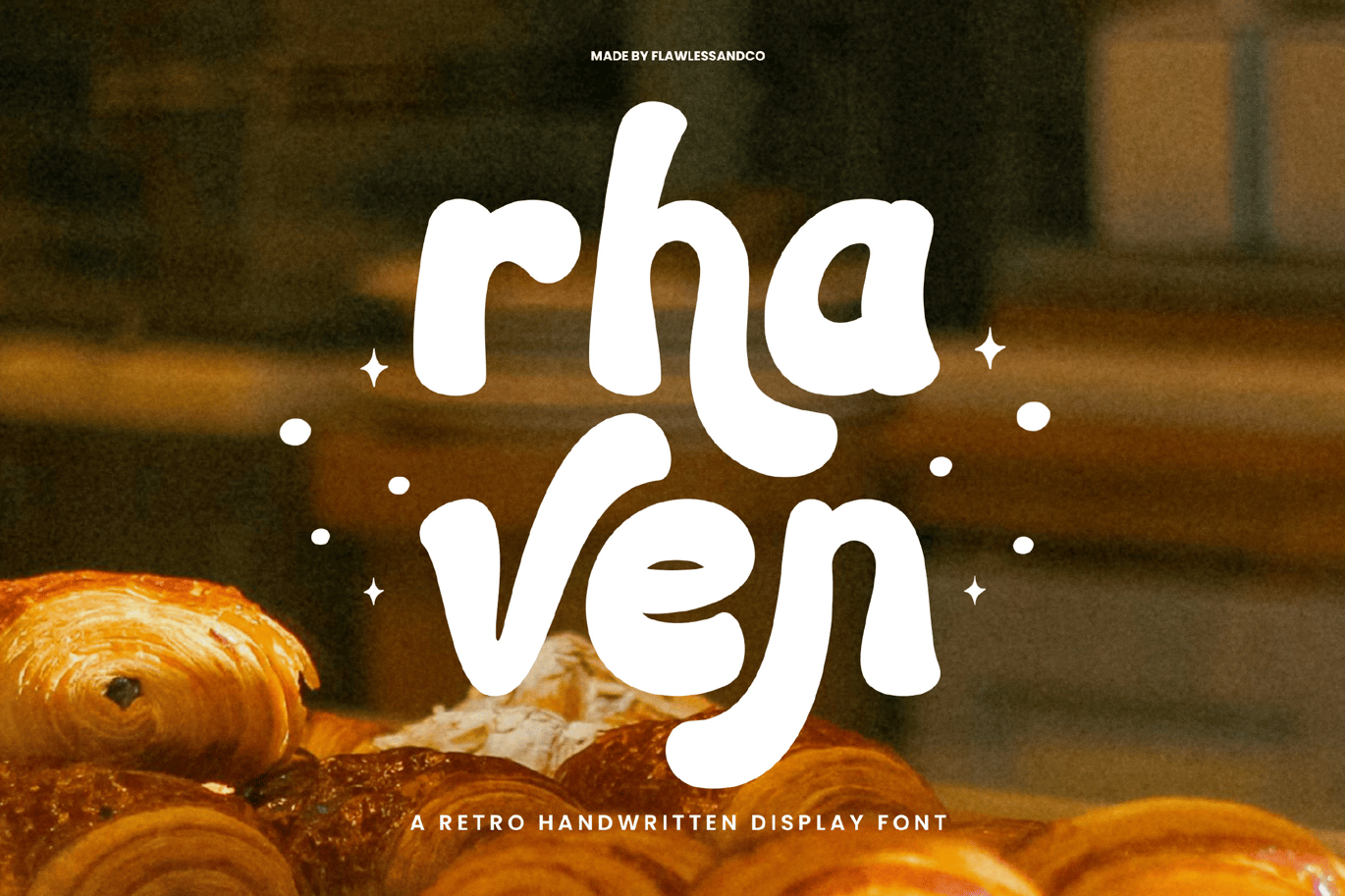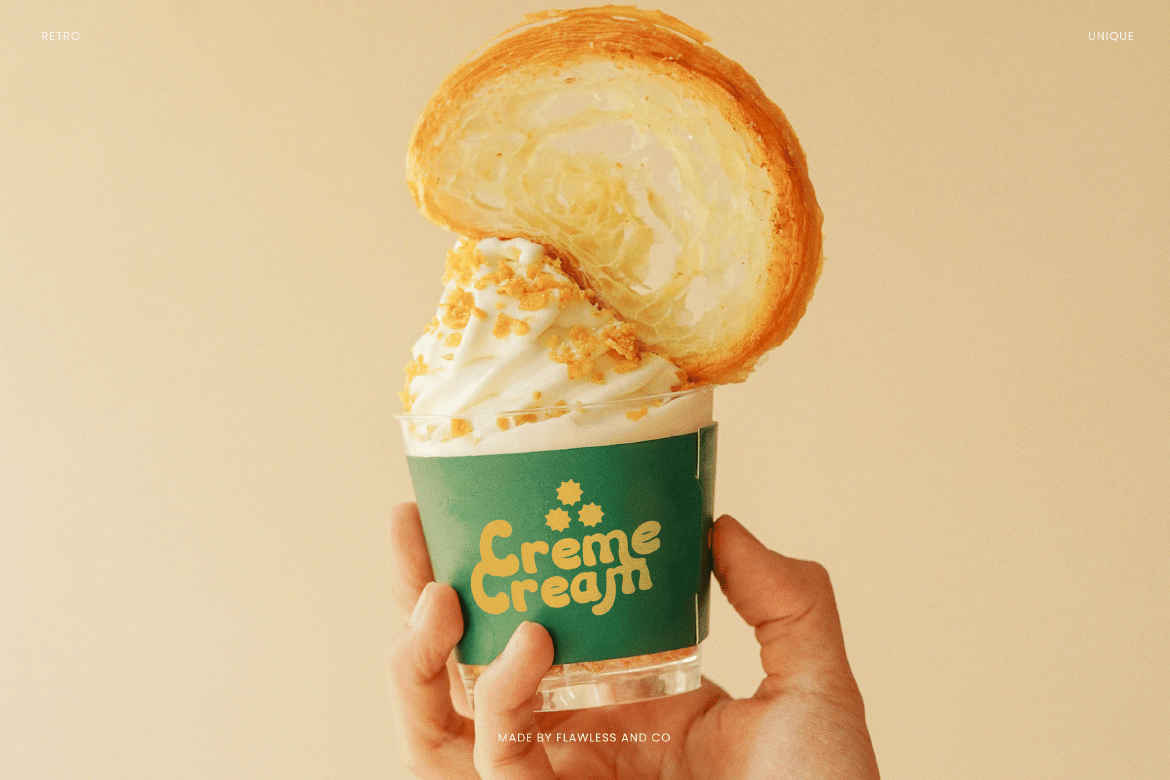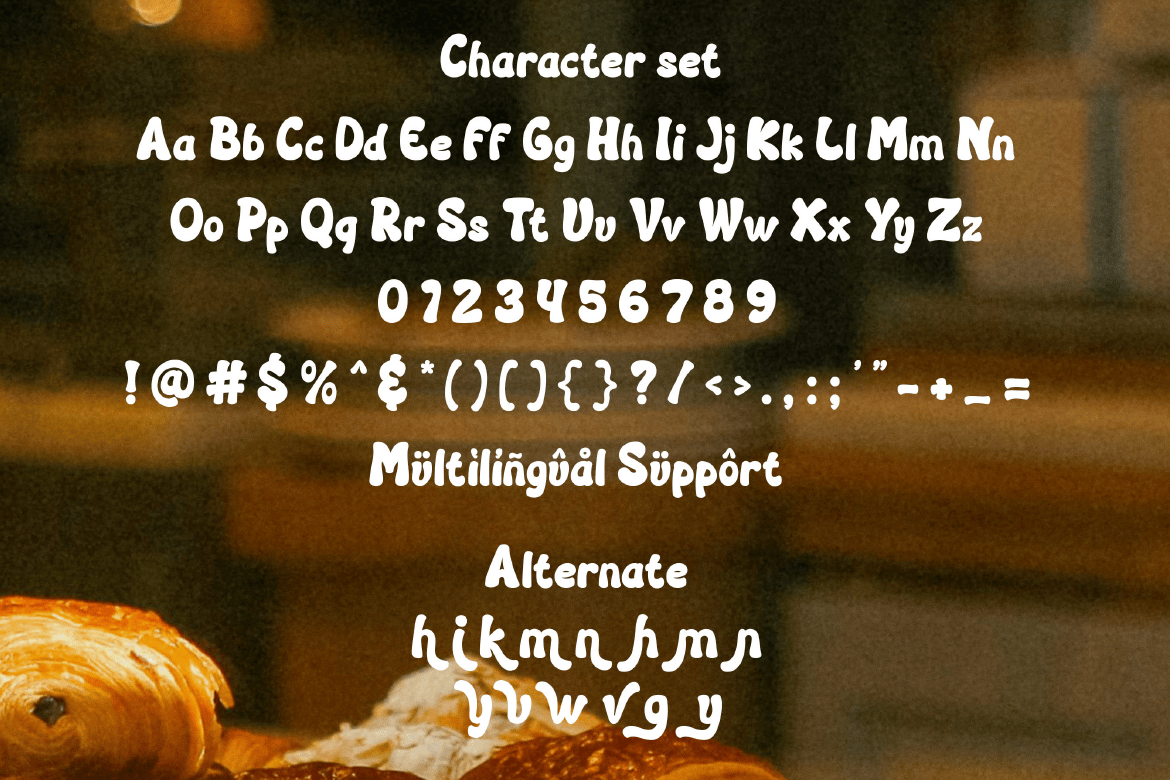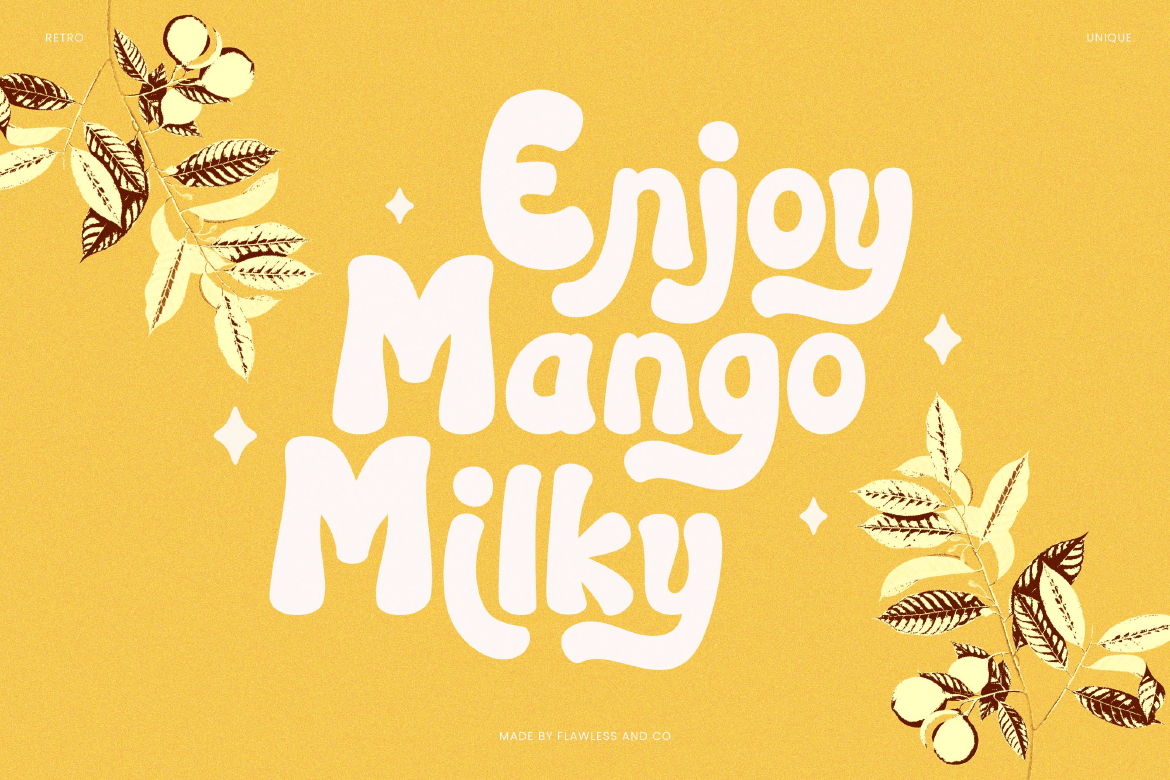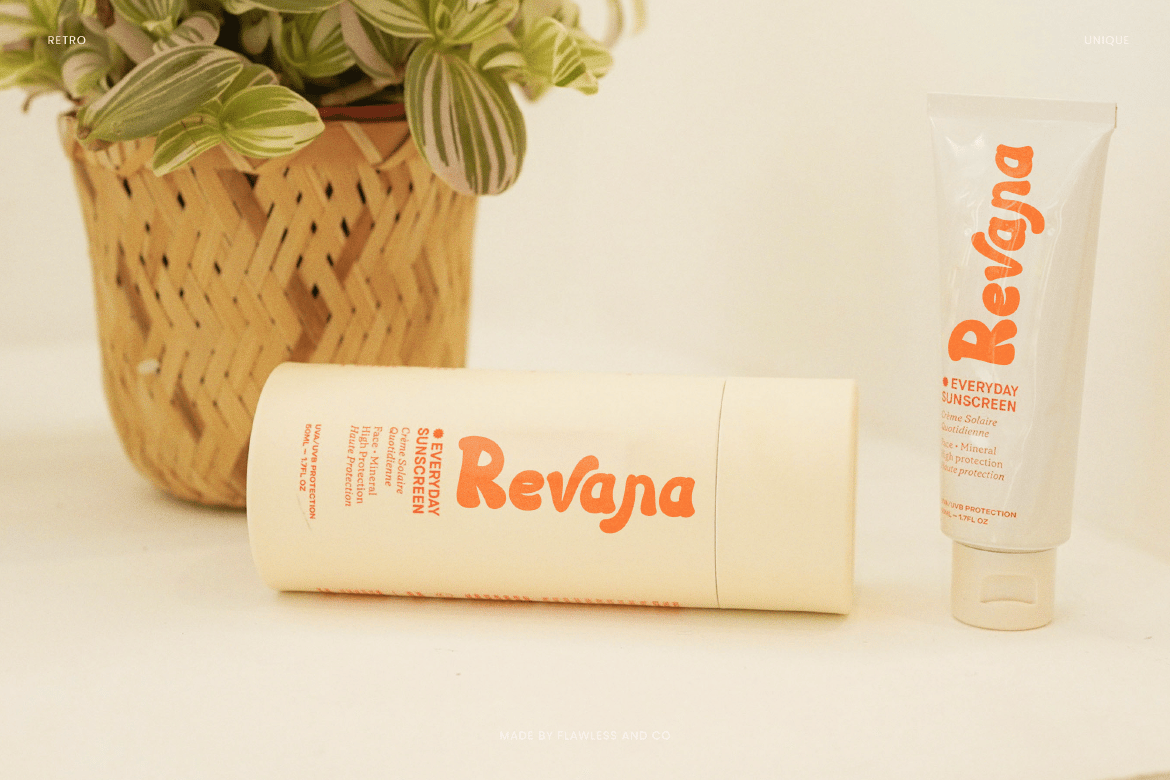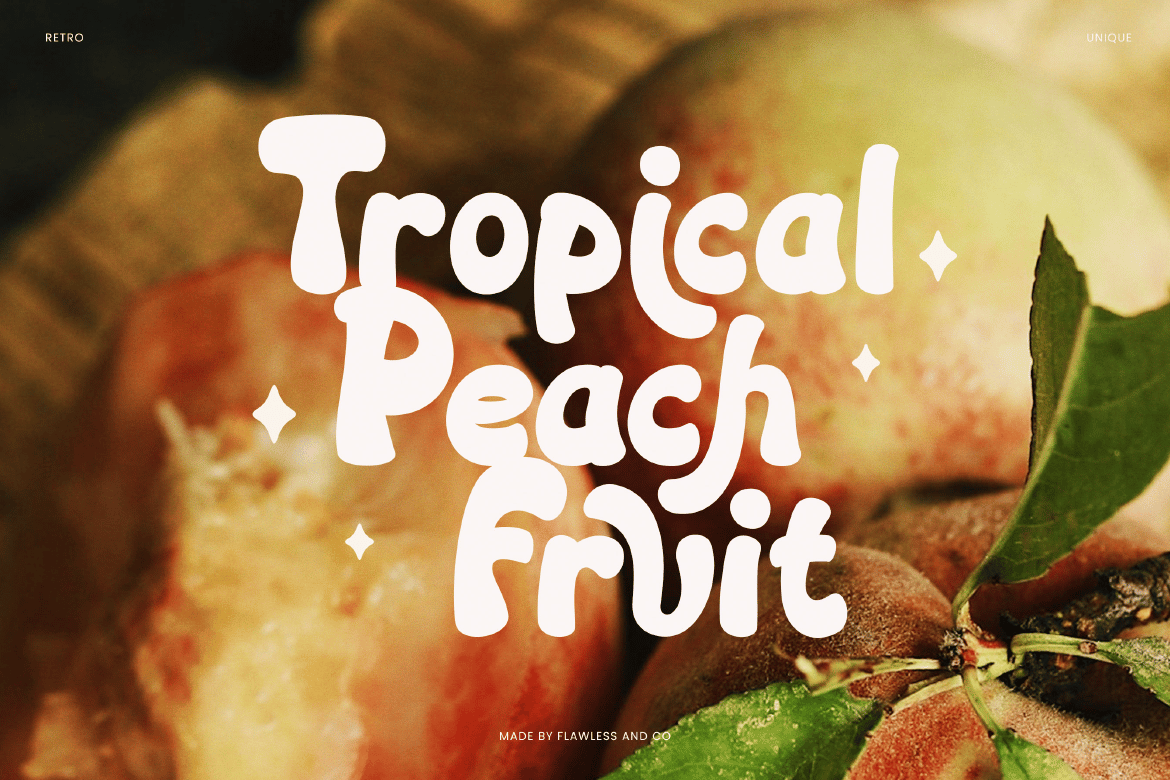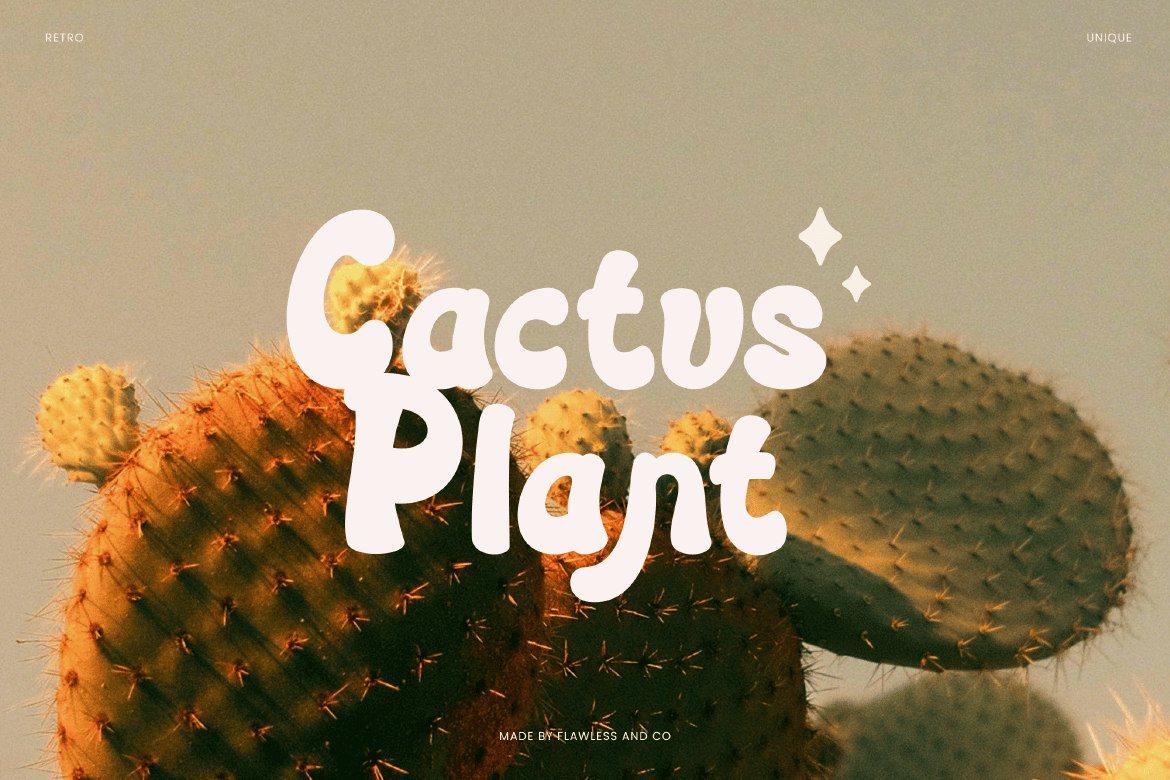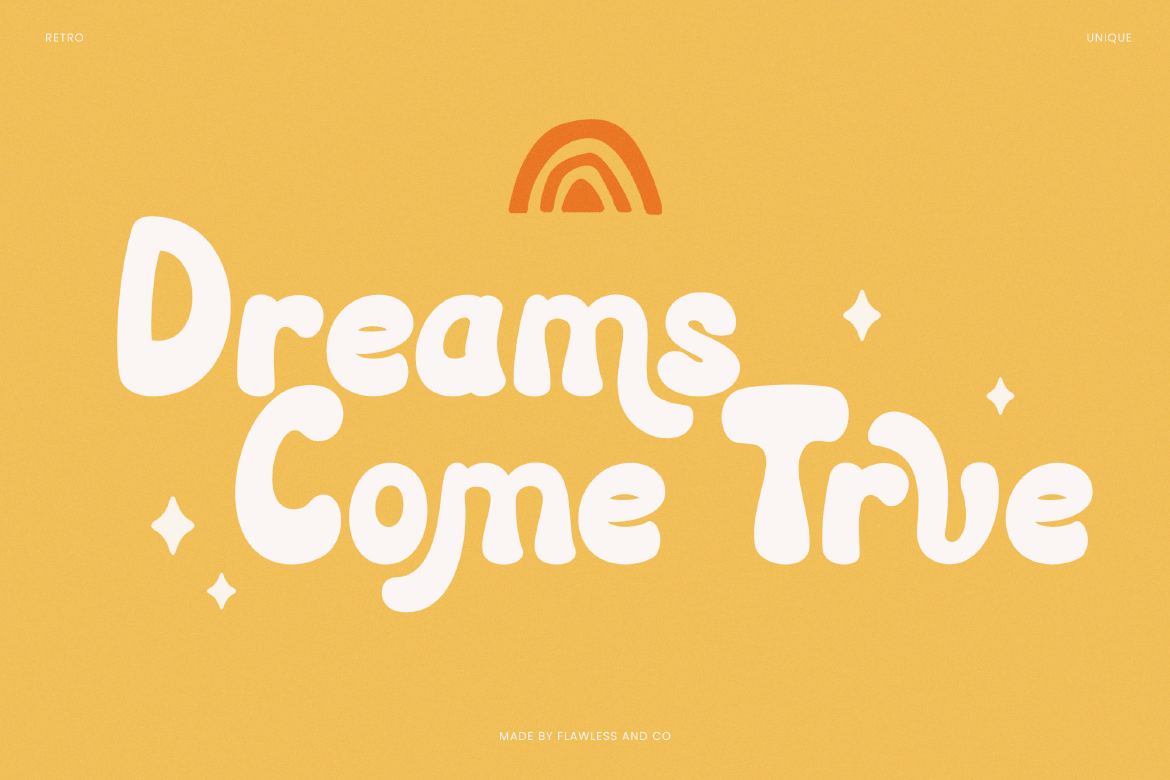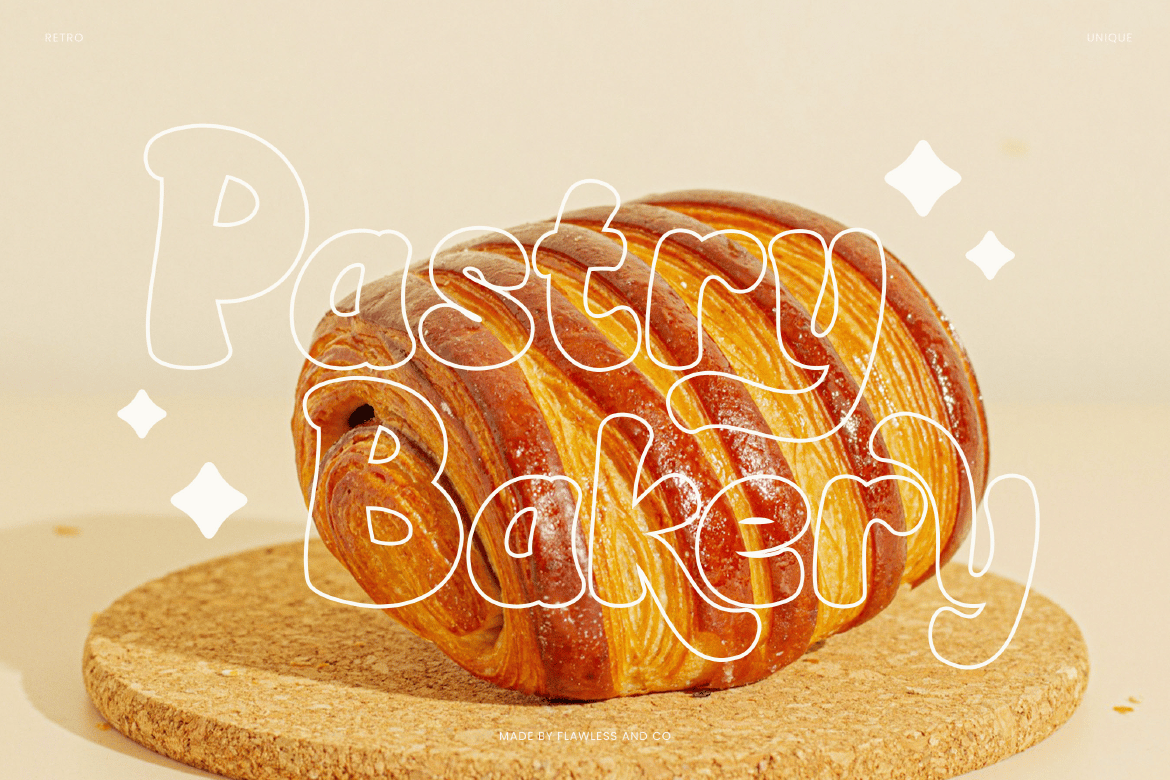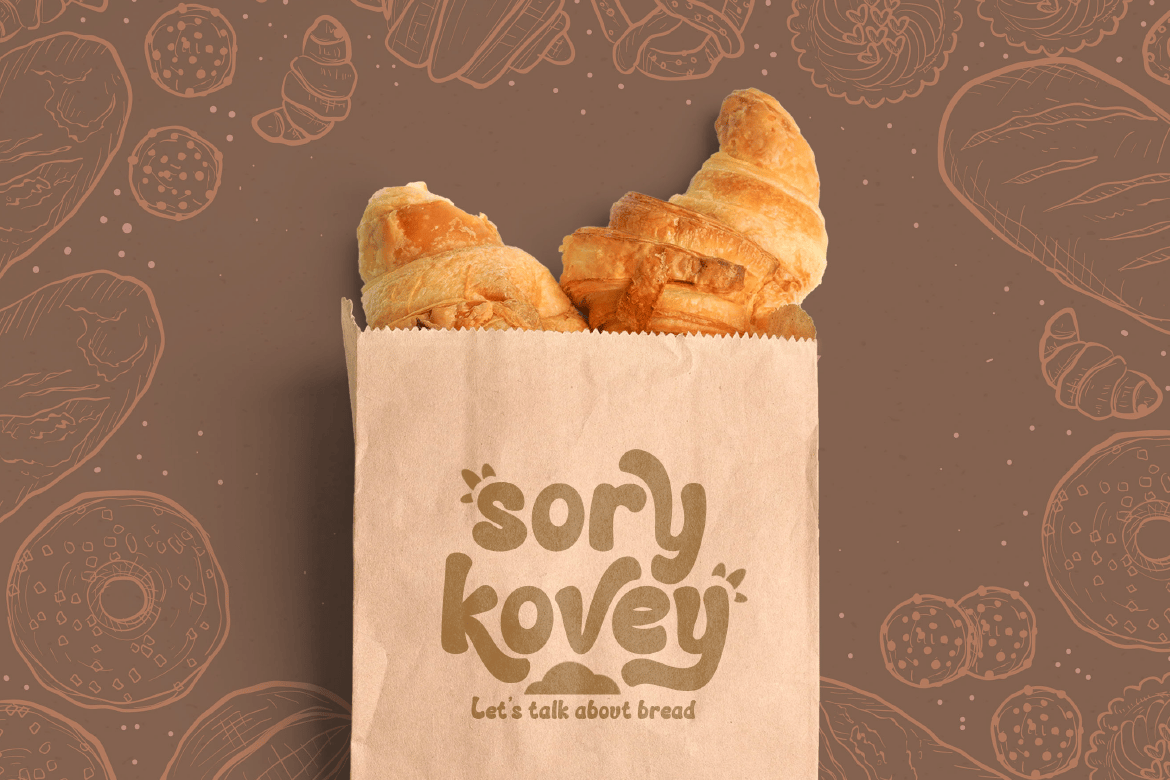
Rhaven – Handwritten Brand Font
Introducing “Rhaven,” a delightful display font designed to bring a playful yet professional touch to your brand. With its bold and eye-catching letterforms, Rhaven adds personality and charm to any design, making it perfect for logo creation, packaging, and other branding materials.